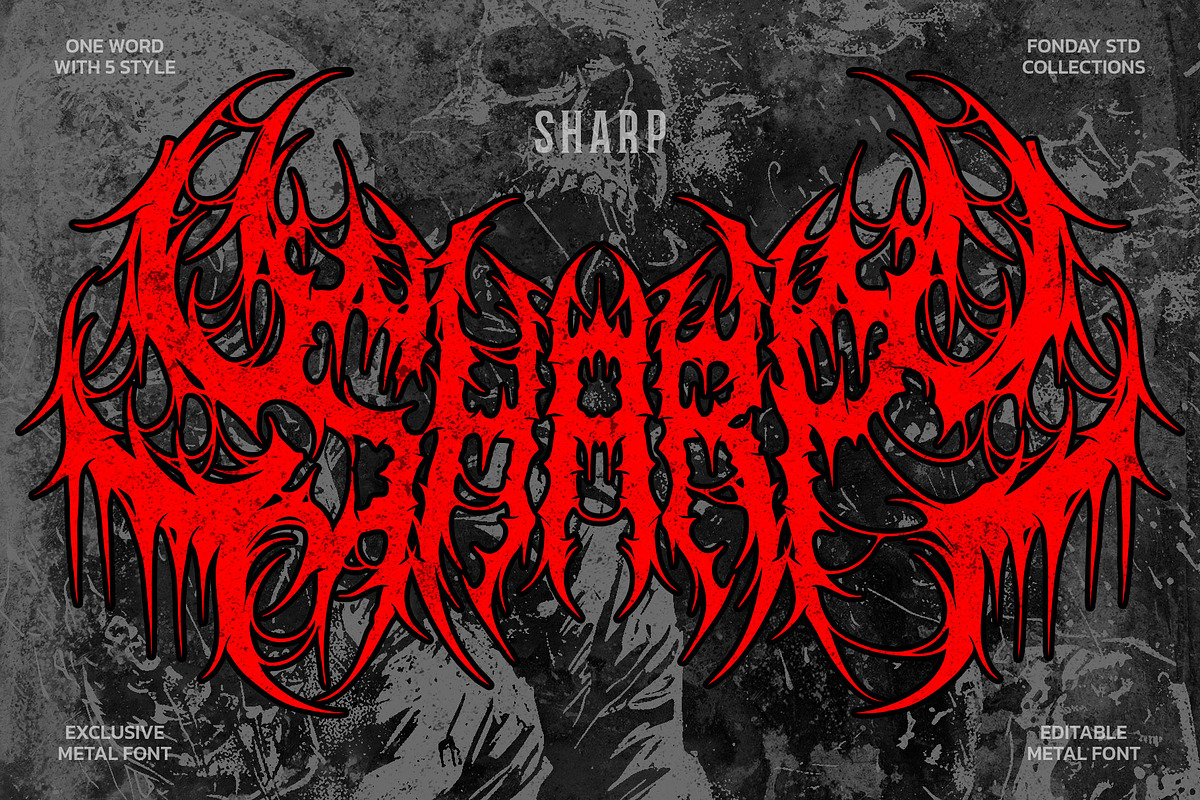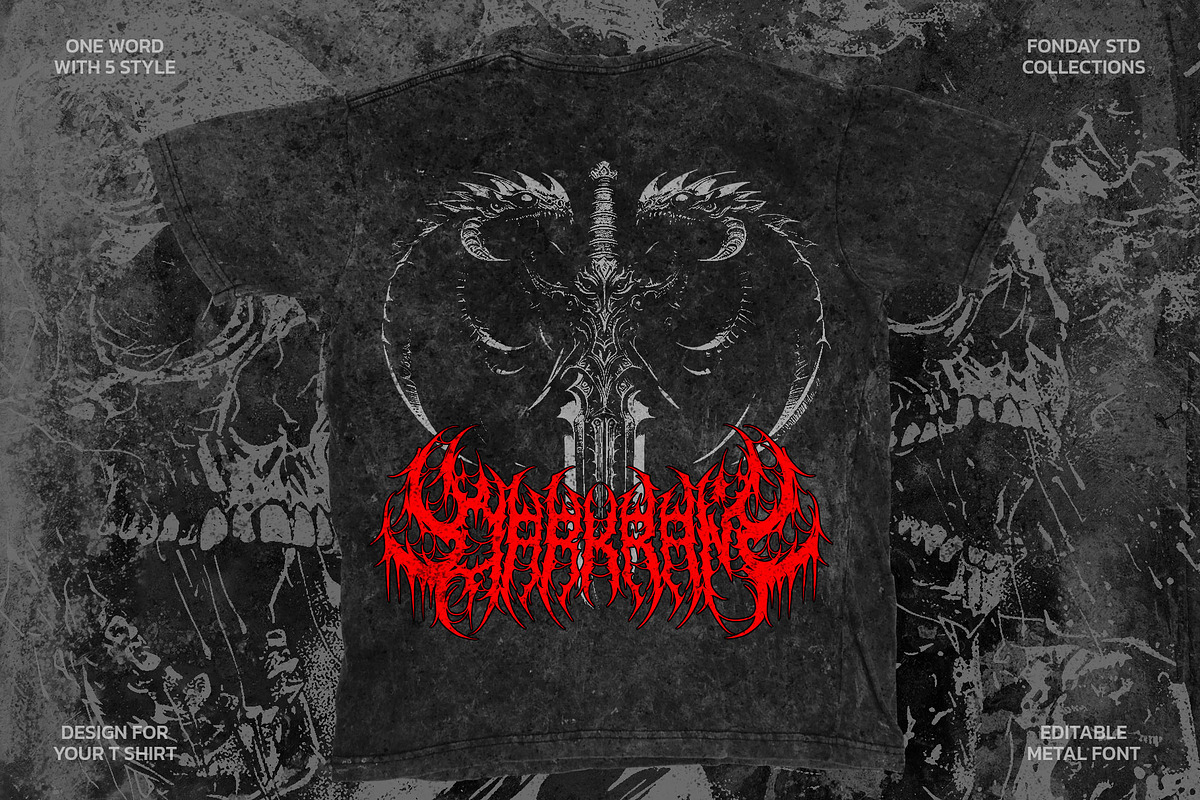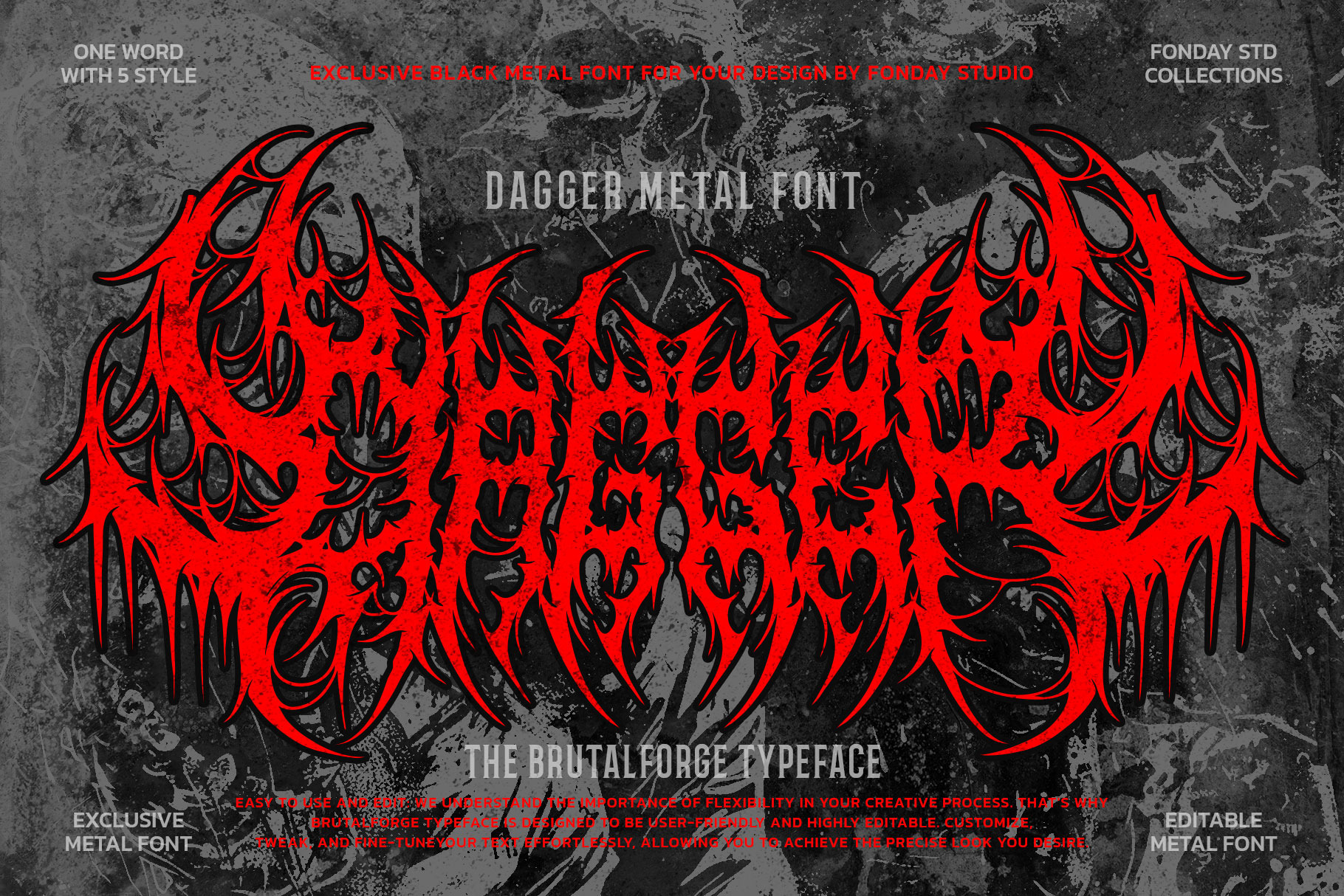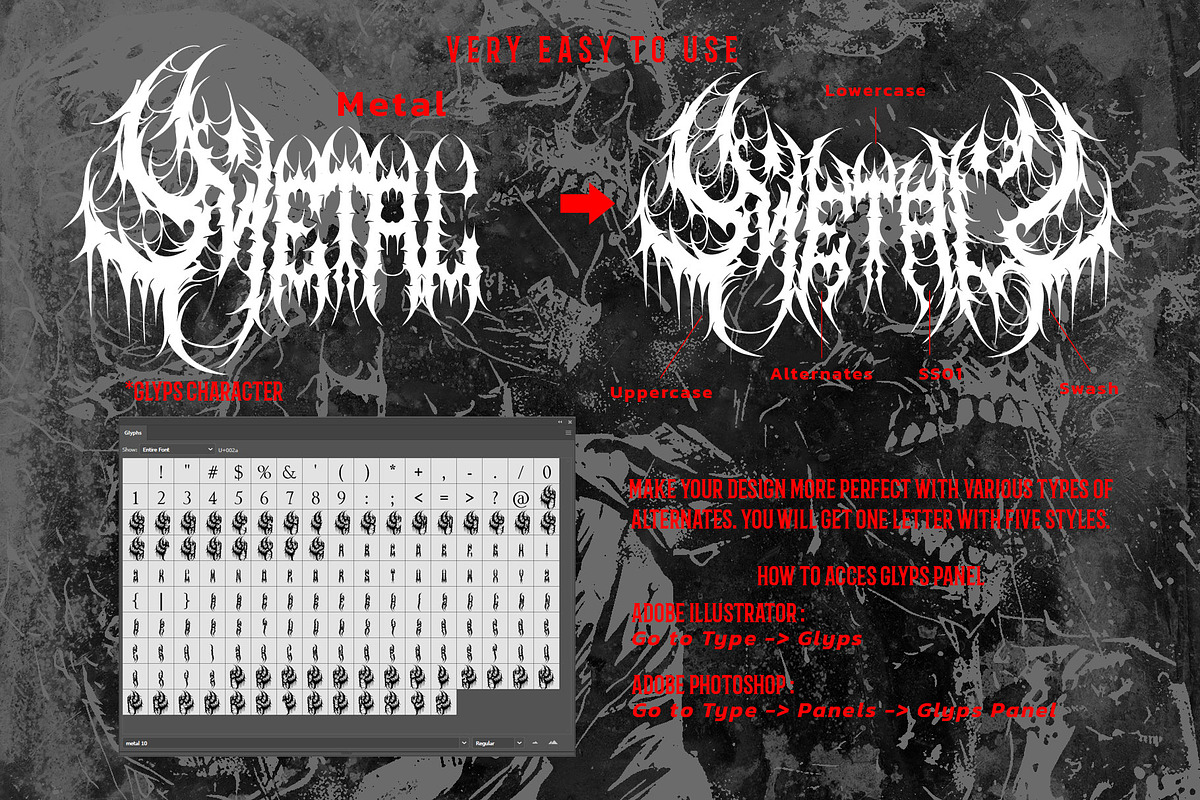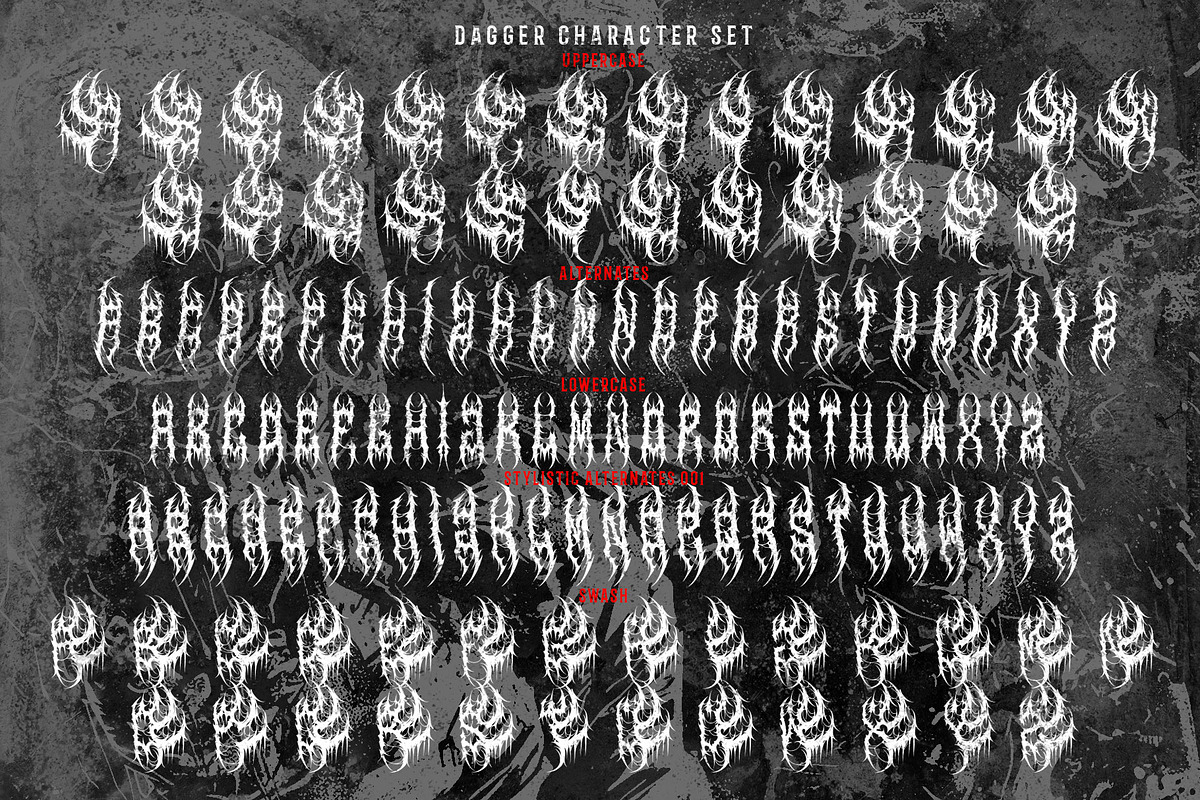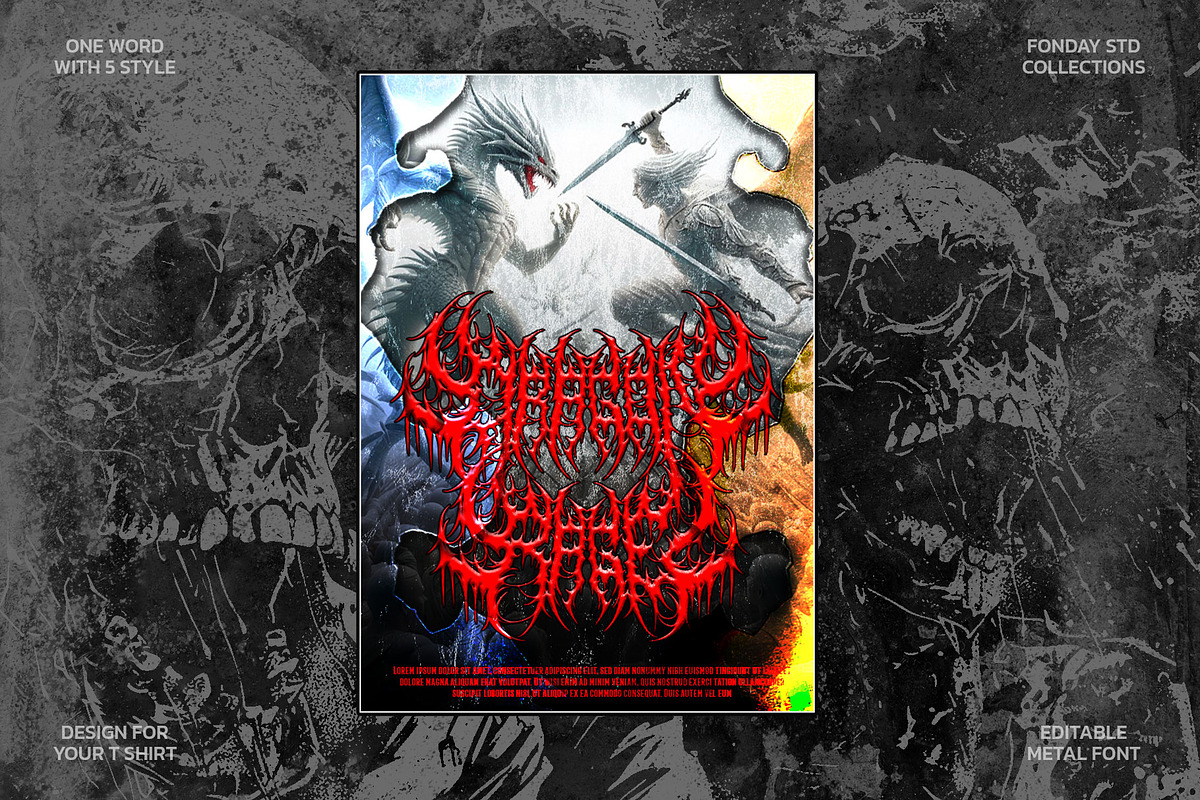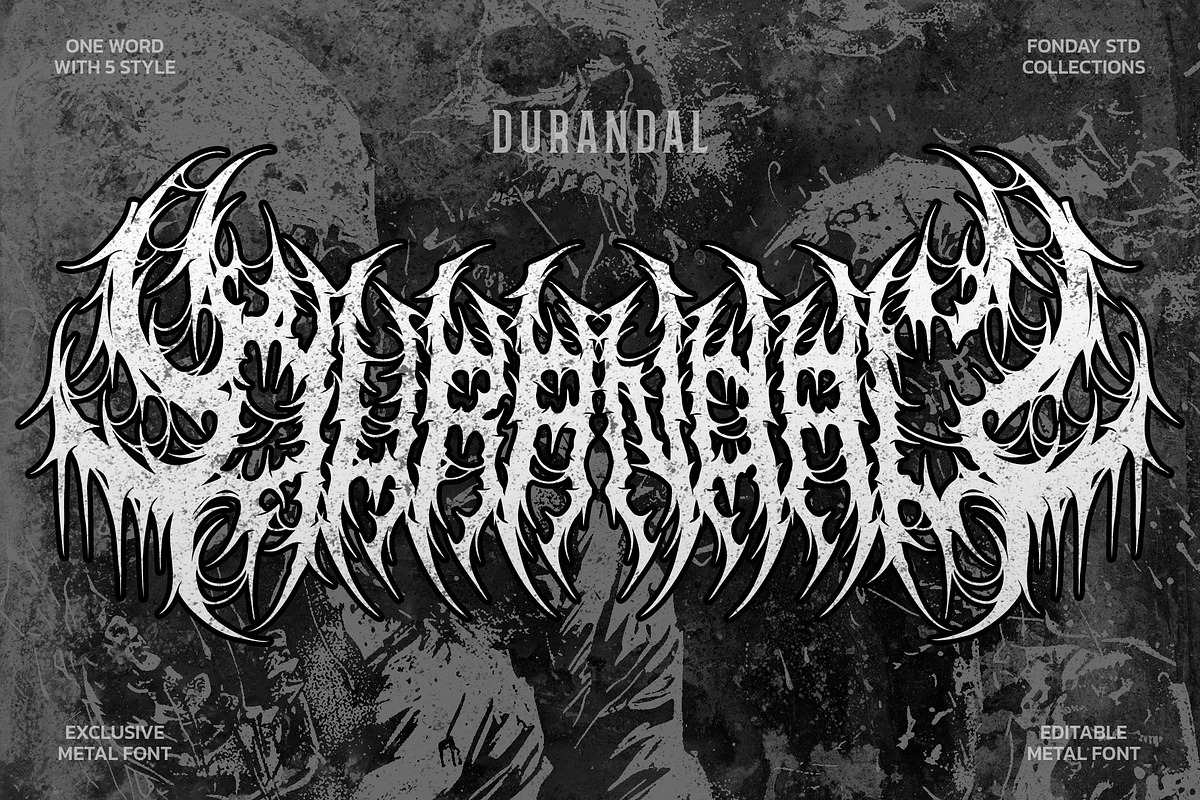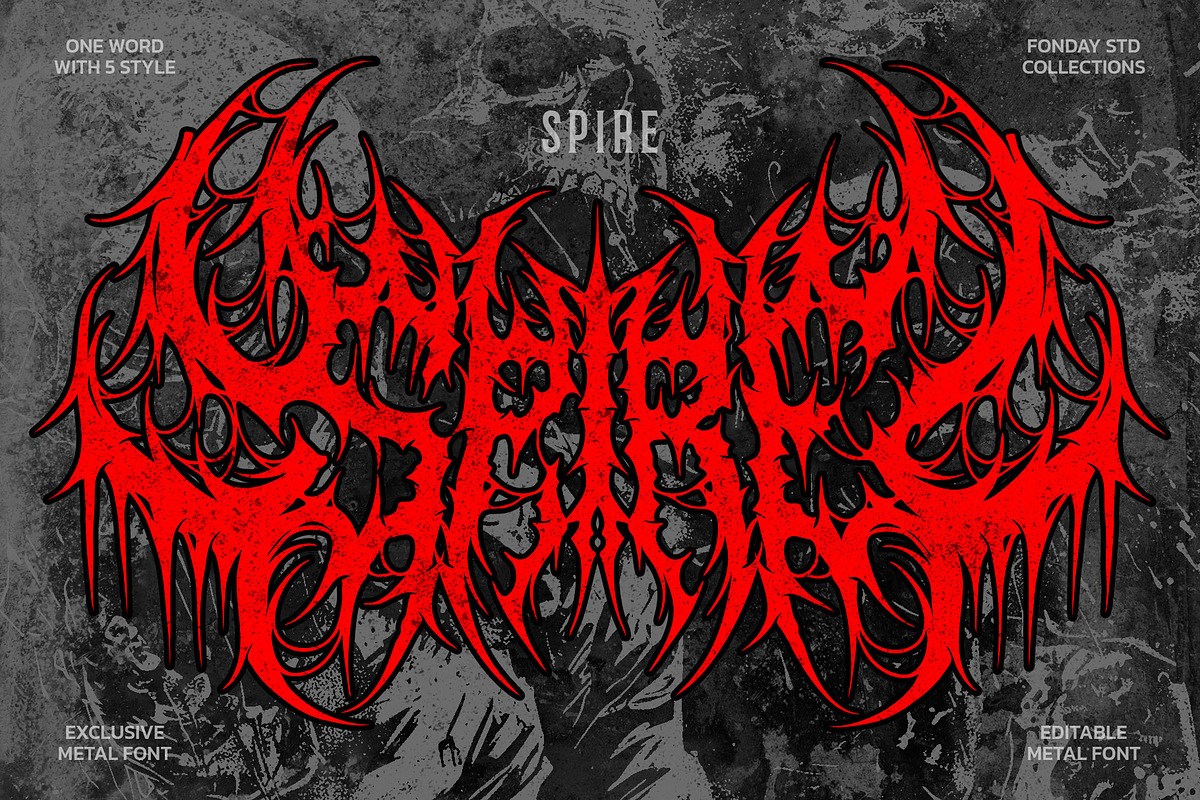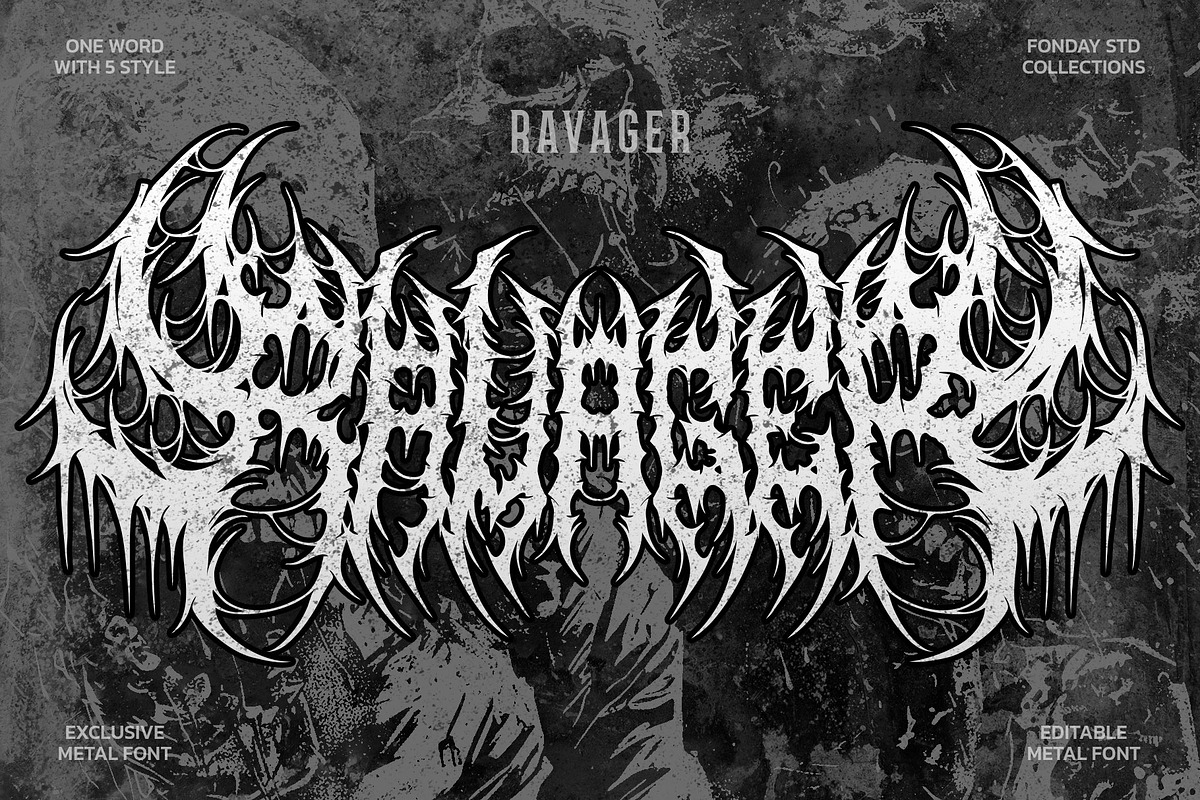
Dagger Death Metal Font
🤘 Introducing Dagger Death Metal Font: Pierce Through the Darkness with Unrivaled Precision! 🤘
Unleash the relentless power of “Dagger Death Metal Font.” This isn’t merely a font; it’s a testament to detail, uncompromising quality, and exclusivity.
🔥 Precision in Every Stroke: Dagger is meticulously crafted, each stroke embodying the raw energy and razor-sharp precision demanded by the metal genre. It sets a new standard for high-quality design.
🤘 A Symphony of Alternates: Immerse yourself in a symphony of alternate characters, providing the tools to carve your designs with a unique, menacing edge that speaks the language of true metal.
✏️ Effortless Mastery: Dagger makes design modification effortless. From posters and logos to t-shirt brands and album covers, wield the font with ease to manifest your dark vision.
- All Caps Character
- Stylistic Alternate